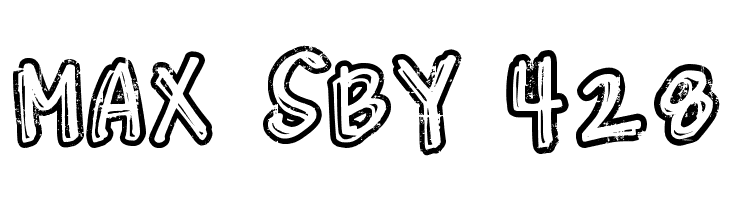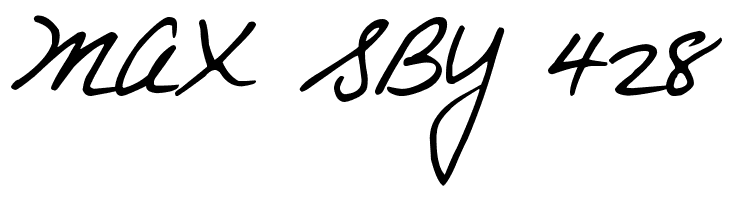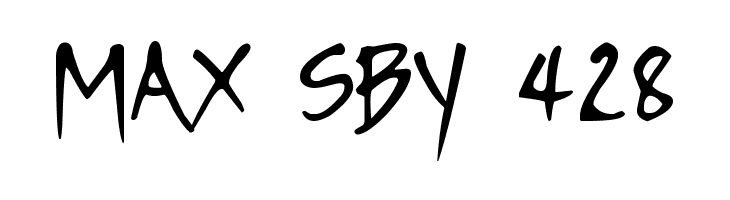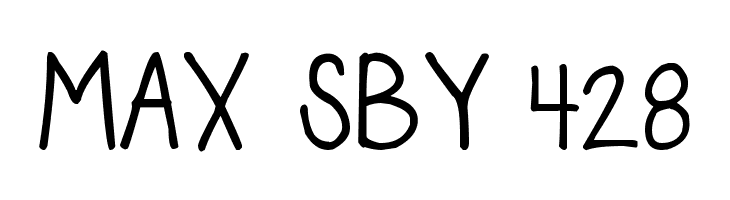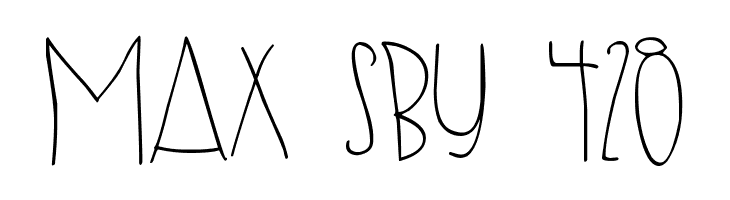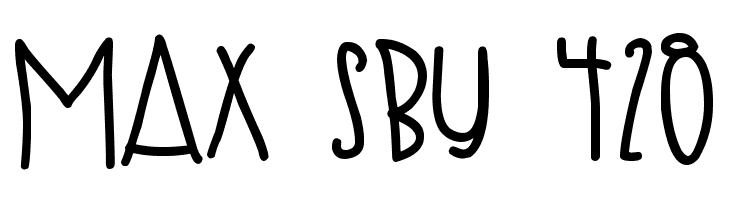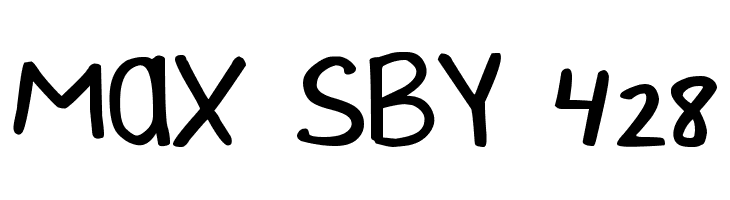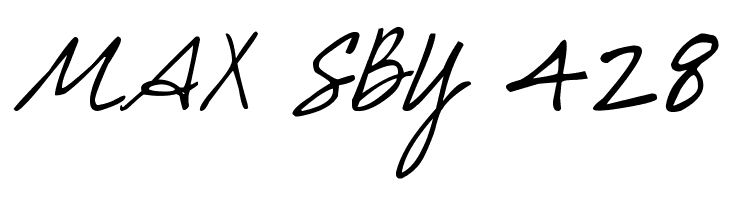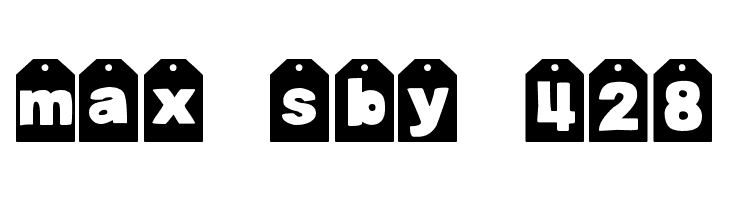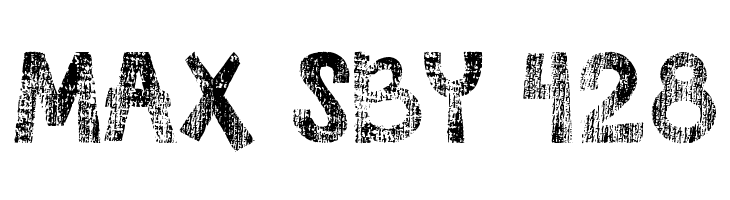
• DJB Starry Starry Font
A bold, star-filled decorative font with a playful and whimsical style.
• DJB Straight Up Now
A playful handwritten font with rounded, smooth letterforms.
• DJB Straight Up Now Bold
A playful, bold, and rounded hand-drawn font with a friendly vibe.
• DJB Straight Up Now Bounce
A playful, handwritten font with a lively bounce and smooth, rounded characters.
• DJB SUGAR SHOCK
A playful, hand-drawn font with tall, narrow letters and a whimsical style.
• DJB SUGAR SHOCK MAX Bold
A playful, handwritten font with bold, rounded strokes and a lively, informal style.
• DJB SWIRL ME AROUND
A decorative script font with swirling, whimsical embellishments.
• DJB TAGGED
A bold, playful font with characters enclosed in tag-like shapes.
• DJB That Font I Saw on TV
A playful, outlined font with tall, narrow characters and rounded edges.
• DJB THE CHEERLEADER
A playful handwritten font with a casual and friendly style.
• DJB The Font that is Liz
A playful, casual handwritten font with a natural, creative flair.
• DJB The Teacher Font
A playful, handwritten font with a chalkboard style.
• DJB This Font is Bold Bold
• DJB This Font is Empty Bold
A playful, bold, and hollow font with whimsical, outlined characters.
• DJB This Font is Stressed Bold
A playful, hand-drawn font with bold, irregular strokes.
• DJB This Font is Worn
A distressed, vintage-style font with a rugged, worn appearance.
• DJB This is Me
A playful, handwritten font with tall, narrow letters and a casual style.
• DJB This is Me 2
• DJB This is My Life
A playful, handwritten font with tall, narrow letters and smooth curves.
• DJB This Moment
A casual, expressive handwritten font with fluid, connected strokes.
• DJB Tia